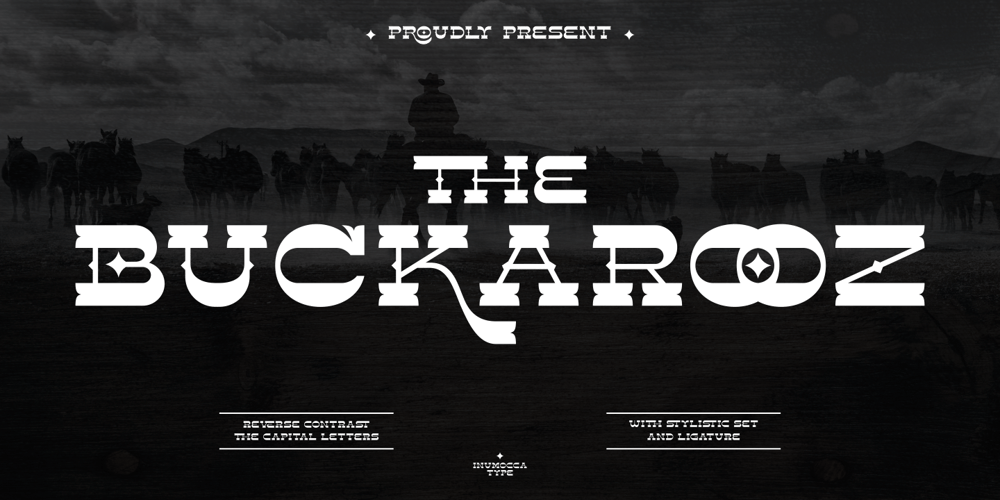
The Buckarooz Font Family was designed by Inu Mocca and published by Inumocca. The Buckarooz contains 1 styles and family package options. The BUCKAROOZ is A Reverse-Contrast letterform with Western Cowboy Atmosphere. They were particularly common in the nineteenth century, and I want to Presenting the letterform style of that era. The Typeface comes with Stylistic Set and Ligature Combinations, Excellent typeface to use for covering your Project, like Branding, Movie Title, Headline Letter, Bookcover or Book Content, Magazine cover, Poster, Quotes Lettering, Logos, and more your project design.- Unique glyphs- Multilingual Characters Support- UPPERCASE- Lowercase- Numeric- Symbol- Punctuation Character- Ligature- Stylistic Set